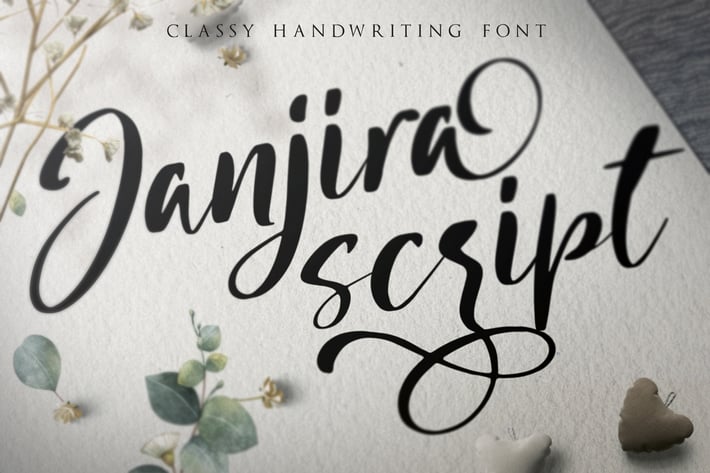
Janjira Script - Classy Handwriting Font
Introducing Janjira Script - A Classy Handwriting Font
Janjira Script is a classy handwriting typeface including stylistic alternate and ligature. This font is a perfect script that allows you to create beautiful hand-made typography in an instant. Janjira is suitable for use in branding sets, invitations, digital content, like Instagram posts, youtube video, Facebook page, and more. Janjira Script provides a perfect balance of casual yet captivating lettering for your design projects.
CHARACTER DETAILS
Basic Latin alphabet A-Z and a-z
Stylistic alternate & Ligature